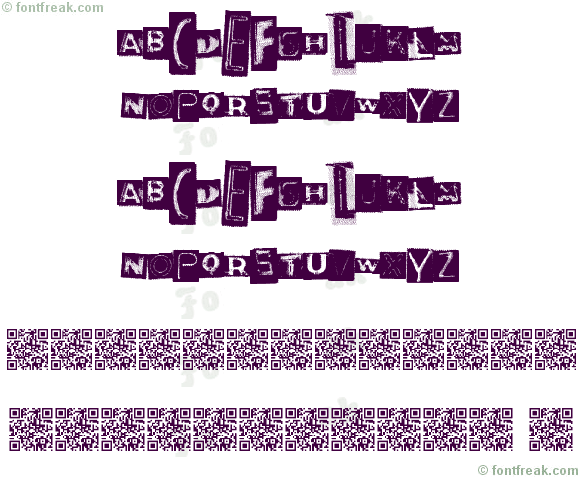
NeonTaste
NeonTaste by Xerographer Fonts is a captivating display font that brings a vibrant, artistic flair to any design project. Its unique visual style features a combination of bold strokes and playful, irregular shapes that evoke a sense of creativity and spontaneity. The font's stroke weight varies, creating an eye-catching contrast that draws attention, while its spacing allows for a dynamic flow, making it perfect for designs that aim to stand out.
This font is particularly well-suited for a variety of applications. It shines in creating posters for music events or art exhibitions, where its energetic character can effectively convey the mood of the occasion. NeonTaste also works beautifully for restaurant menus, especially those seeking to highlight a modern or eclectic dining experience. Additionally, it can enhance branding for small businesses looking to inject personality into their marketing materials, such as flyers or social media posts. For content creators, incorporating the NeonTaste font free download into blogs or website headers can add a distinctive touch that resonates with a youthful audience.
Targeting graphic designers, small business owners, and content creators alike, NeonTaste serves as a versatile tool in any creative arsenal. Its quirky and bold elements make it an excellent choice for projects that require a sense of fun and originality. The font stands out not only for its striking visuals but also for its ability to communicate a playful yet professional vibe. With NeonTaste, designers can explore the intersection of art and typography, making their work not just functional, but also a feast for the eyes.